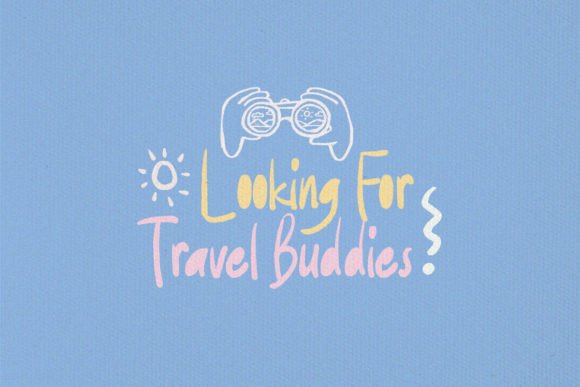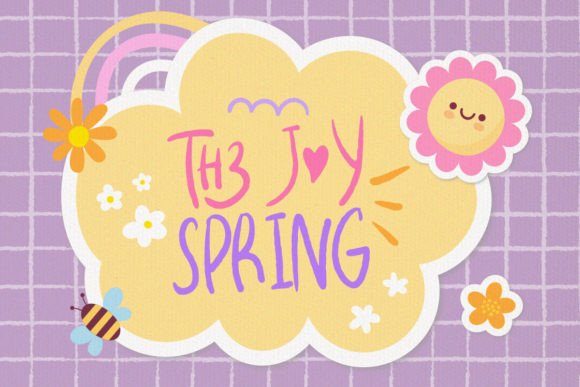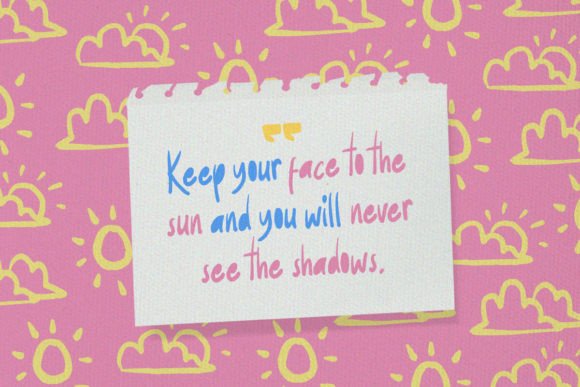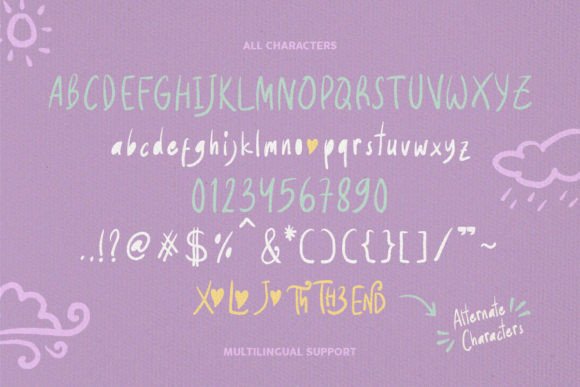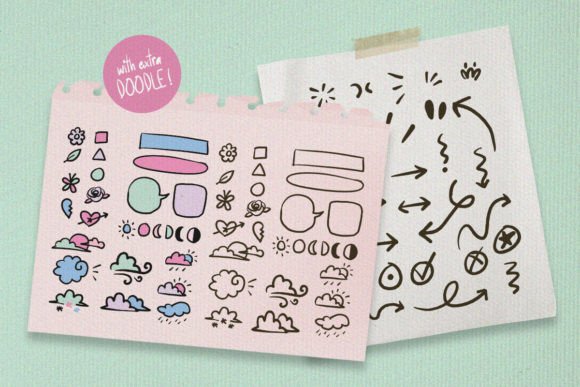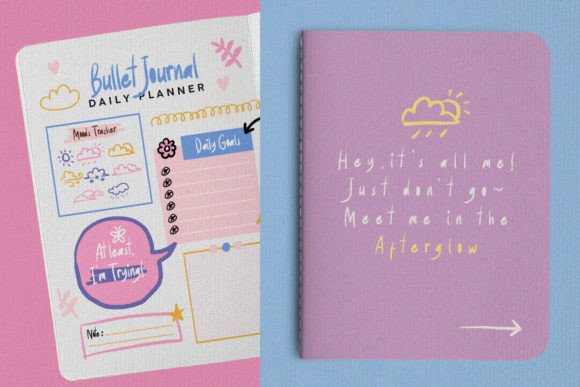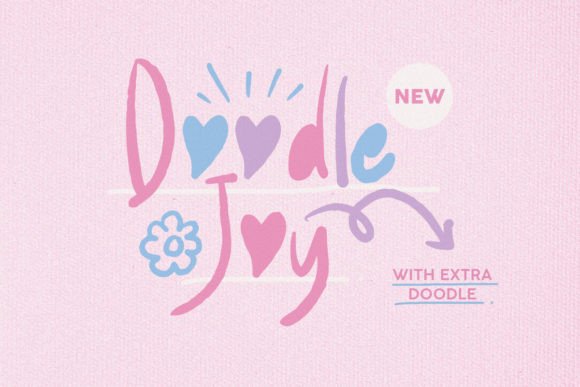
Doodle Joy Font: Unleash Your Creativity with the Cutest Handwriting Font
Are you tired of using the same old fonts for your designs? Look no further! Doodle Joy Font is here to bring a touch of whimsy and charm to your creations. This adorable handwriting font is not just any ordinary font, but it comes with a delightful bonus of doodles that will elevate your designs to a new level of cuteness.
What is Doodle Joy Font?
Doodle Joy Font is a handwriting font that exudes a carefree and bubbly character, making it perfect for a range of purposes. Its unique and playful strokes will add a personal touch to your designs, making them stand out from the crowd. Whether you’re a designer, crafter, or simply someone who loves to create, Doodle Joy Font is the perfect addition to your font collection.
Features of Doodle Joy Font
- Handwritten with love: Doodle Joy Font is carefully crafted with handwritten strokes, giving it a personal and authentic feel.
- Doodle bonus: This font comes with a delightful bonus of doodles that will add an extra layer of charm to your designs.
- Carefree strokes: The font features carefree strokes that will give your designs a playful and whimsical feel.
- Bubbly character: Doodle Joy Font has a bubbly character that will make your designs pop with personality.
Uses of Doodle Joy Font
Doodle Joy Font is versatile and can be used for a range of purposes, including:
- Journaling: Create beautiful journal pages with Doodle Joy Font and add a personal touch to your journaling.
- T-shirts and apparel: Add a touch of whimsy to your t-shirt designs and make them stand out with Doodle Joy Font.
- Mugs and ceramics: Create adorable mugs and ceramics with Doodle Joy Font and make them perfect for gifts or personal use.
- Posters and flyers: Use Doodle Joy Font to create eye-catching posters and flyers that will grab attention.
- Logos and branding: Add a touch of personality to your logos and branding with Doodle Joy Font.
Why Choose Doodle Joy Font?
So, why choose Doodle Joy Font over other fonts? Here are a few reasons:
- Unique and playful: Doodle Joy Font is a unique and playful font that will add a touch of personality to your designs.
- Versatile: Doodle Joy Font is versatile and can be used for a range of purposes.
- Cute and charming: This font is undeniably cute and charming, making it perfect for designers and crafters who want to add a touch of whimsy to their creations.
Tips for Using Doodle Joy Font
Here are a few tips for using Doodle Joy Font:
- Experiment with colors: Doodle Joy Font looks great in a range of colors, so don’t be afraid to experiment and find the perfect color for your design.
- Mix and match: Mix and match Doodle Joy Font with other fonts to create a unique and interesting design.
- Use doodles wisely: Use the doodles that come with Doodle Joy Font wisely to add an extra layer of charm to your designs.
- Have fun: Most importantly, have fun with Doodle Joy Font! This font is all about adding a touch of whimsy to your designs, so enjoy the process and be creative.
| Font Name | Doodle Joy Font |
| Author | Sloulyfe & Oyko |
Doodle Joy Font is a must-have for designers and crafters who want to add a touch of whimsy to their creations. With its unique and playful strokes, doodle bonus, and carefree character, this font is perfect for a range of purposes. Whether you’re creating journal pages, t-shirt designs, or logos, Doodle Joy Font is sure to bring a smile to your face and a touch of charm to your designs. So why wait? Dive into boundless creativity with Doodle Joy Font and watch your designs come to life effortlessly!